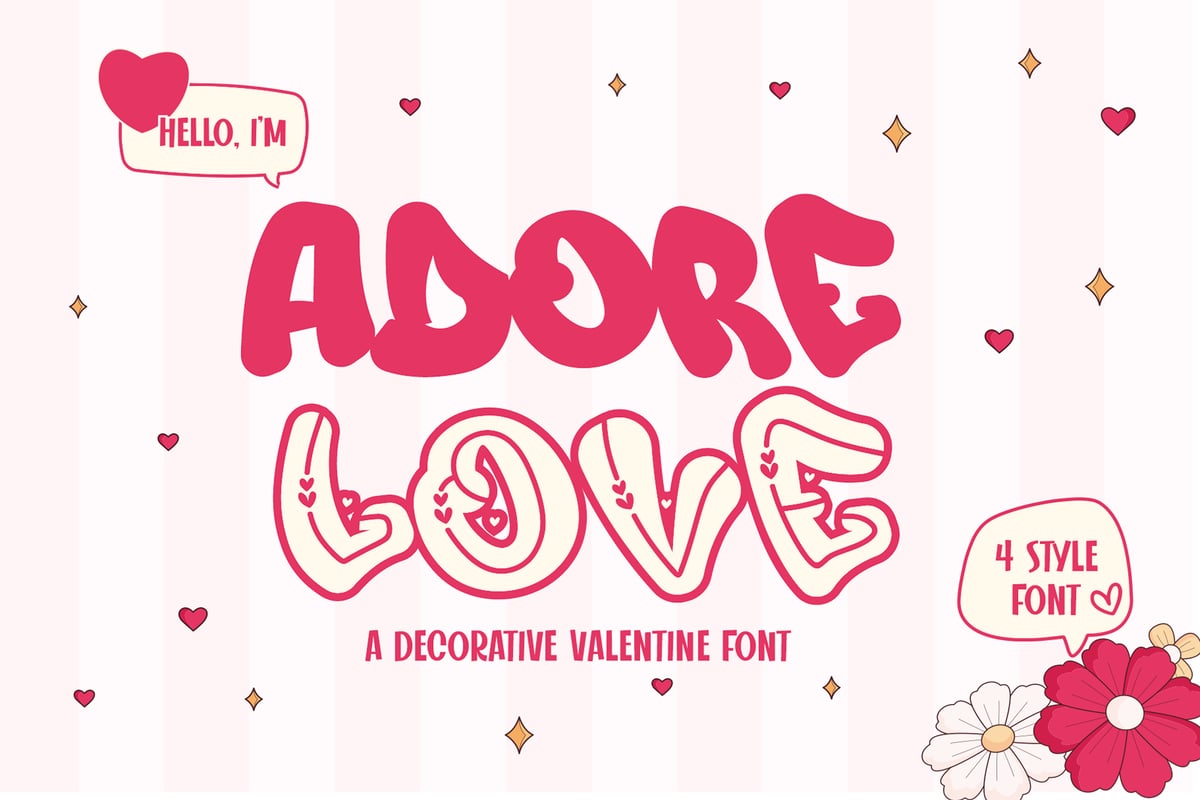
Adore Love Deco
Adore Love is the ultimate font for capturing the essence of romance and charm. Perfectly crafted for Valentine’s Day and love-themed projects, this decorative font adds an elegant, heartfelt touch to your designs.